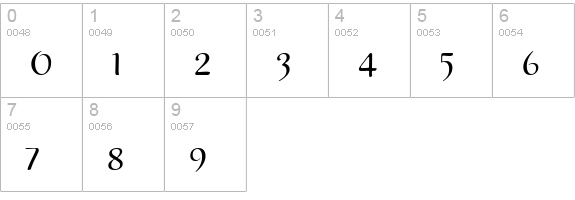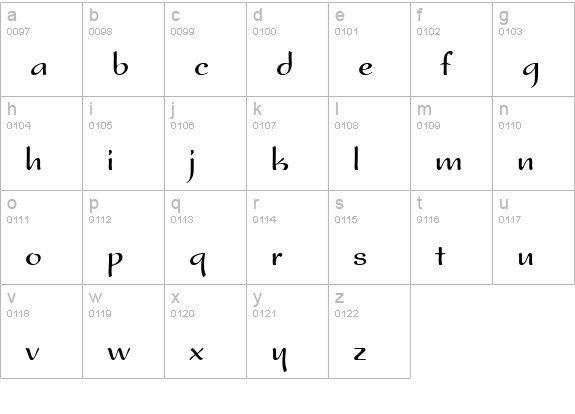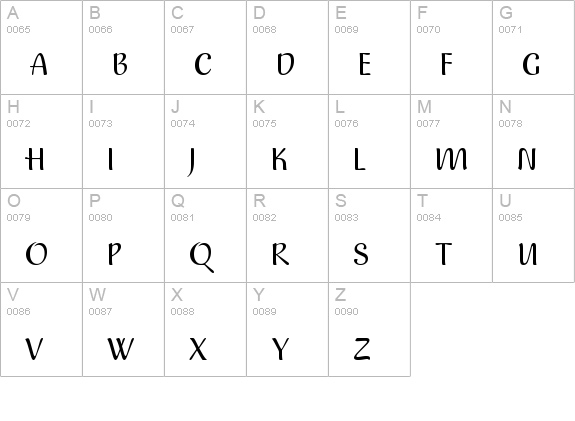
PFPlacebo Font Details
Introducing PFPlacebo font, a sleek and modern typeface that exudes sophistication and elegance. With its clean lines and unique design, PFPlacebo is perfect for adding a touch of style to any project. Whether you're creating a logo, designing a website, or crafting a poster, this versatile font is sure to make a statement. What sets PFPlacebo apart is its seamless blend of classic and contemporary elements, making it suitable for a wide range of design applications. The font's versatility allows it to be used for both headings and body text, ensuring a cohesive and polished look throughout your project. Best of all, PFPlacebo is available for free download at FontsMarket.com, making it accessible to designers of all skill levels. Don't miss out on the opportunity to elevate your designs with this stunning and versatile font. Download PFPlacebo today and take your projects to the next level!